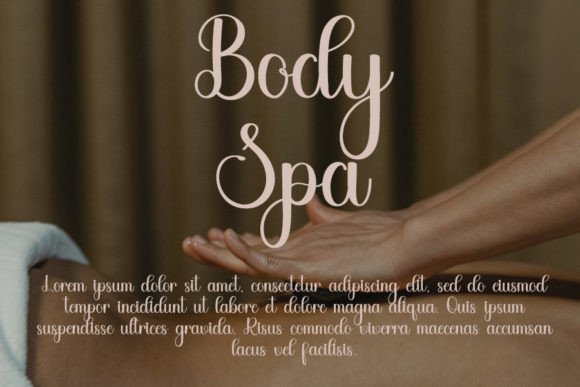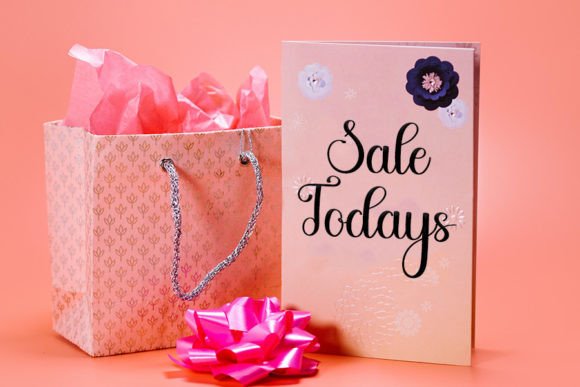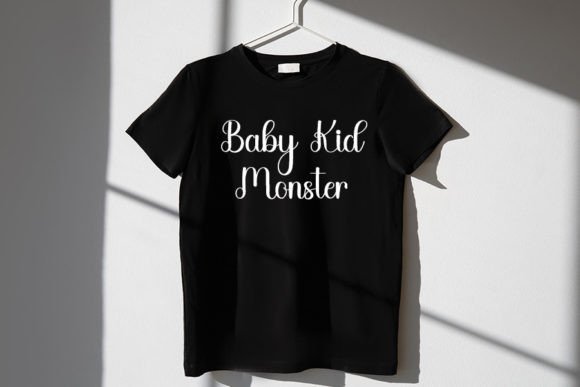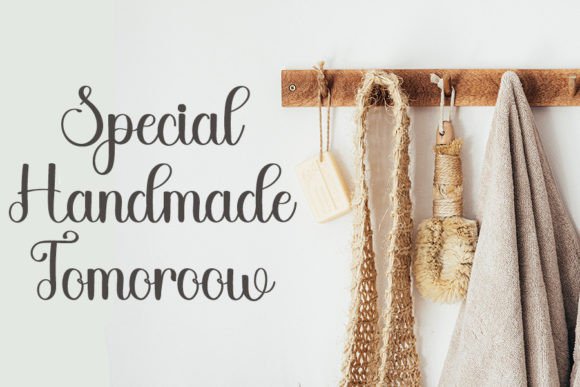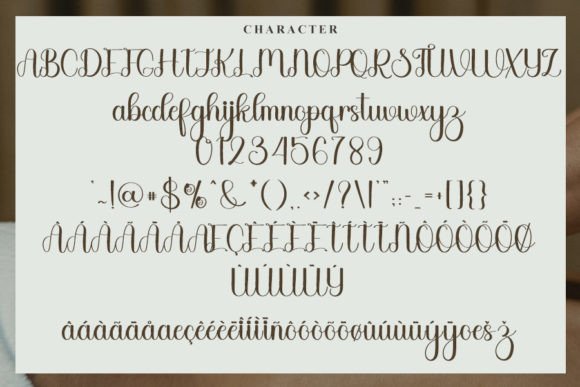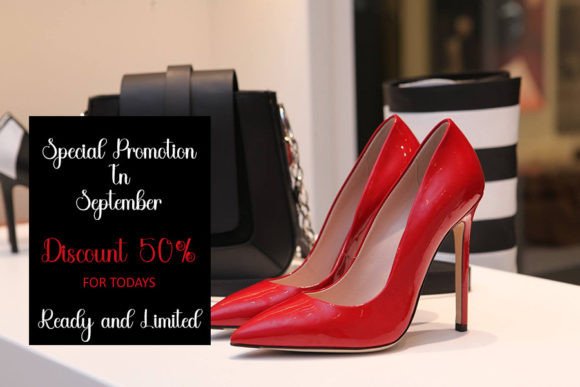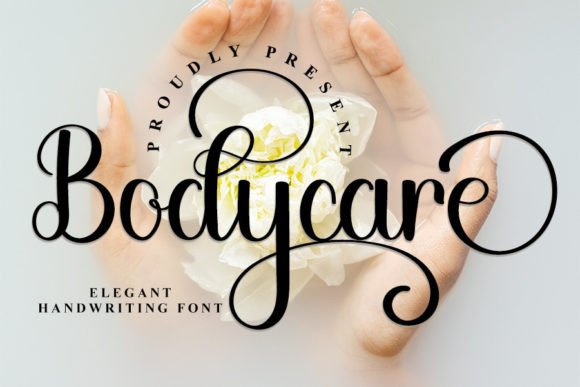
Introducing Bodycare Font: Elevate Your Designs with Elegance and Class
In the world of typography, fonts play a crucial role in conveying the tone and personality of a design. For designers and crafters seeking to add a touch of sophistication and elegance to their projects, the Bodycare Font is an excellent choice. This trendy handwritten font boasts a contemporary atmosphere and impeccable form, inspired by timeless classic calligraphy.
The Inspiration Behind Bodycare Font
Bodycare Font draws inspiration from traditional calligraphy, infusing it with a modern twist to create a unique and stylish typeface. The result is a font that exudes elegance and class, perfect for designers looking to add a touch of refinement to their work. Whether you’re creating branding materials, packaging, or digital content, Bodycare Font is sure to make a lasting impression.
Key Features of Bodycare Font
- Trendy and Handwritten: Bodycare Font features a handwritten style that adds a personal touch to any design.
- Contemporary Atmosphere: The font’s modern aesthetic ensures it stays relevant and fresh, making it perfect for contemporary designs.
- Impeccable Form: Inspired by classic calligraphy, Bodycare Font boasts impeccable form and attention to detail.
- Versatile: This font can be used across various design projects, from branding and packaging to digital content and more.
Uses of Bodycare Font
Bodycare Font’s versatility makes it an excellent choice for a wide range of design projects. Here are some ideas to get you started:
- Branding and Logo Design: Create a lasting impression with a custom logo or branding materials that showcase your business’s personality.
- Packaging Design: Add a touch of elegance to your product packaging and make it stand out on store shelves.
- Digital Content: Use Bodycare Font to create engaging social media graphics, blog posts, and website content that resonates with your audience.
- Stationery and Invitations: Create beautiful stationery, invitations, and greeting cards that showcase your personal style.
Tips for Using Bodycare Font Effectively
To get the most out of Bodycare Font, consider the following tips:
- Pair with Neutral Backgrounds: Allow Bodycare Font to take center stage by pairing it with neutral backgrounds that don’t compete for attention.
- Experiment with Colors: Try pairing Bodycare Font with different colors to create unique and eye-catching combinations.
- Use for Headings and Titles: Bodycare Font is perfect for headings and titles, adding a touch of elegance and sophistication to your designs.
Bodycare Font is an exceptional choice for designers and crafters seeking to add elegance and class to their design projects. With its trendy handwritten style, contemporary atmosphere, and impeccable form, this font is sure to elevate your designs and leave a lasting impression. Whether you’re creating branding materials, packaging, or digital content, Bodycare Font is the perfect tool to help you achieve your creative vision.